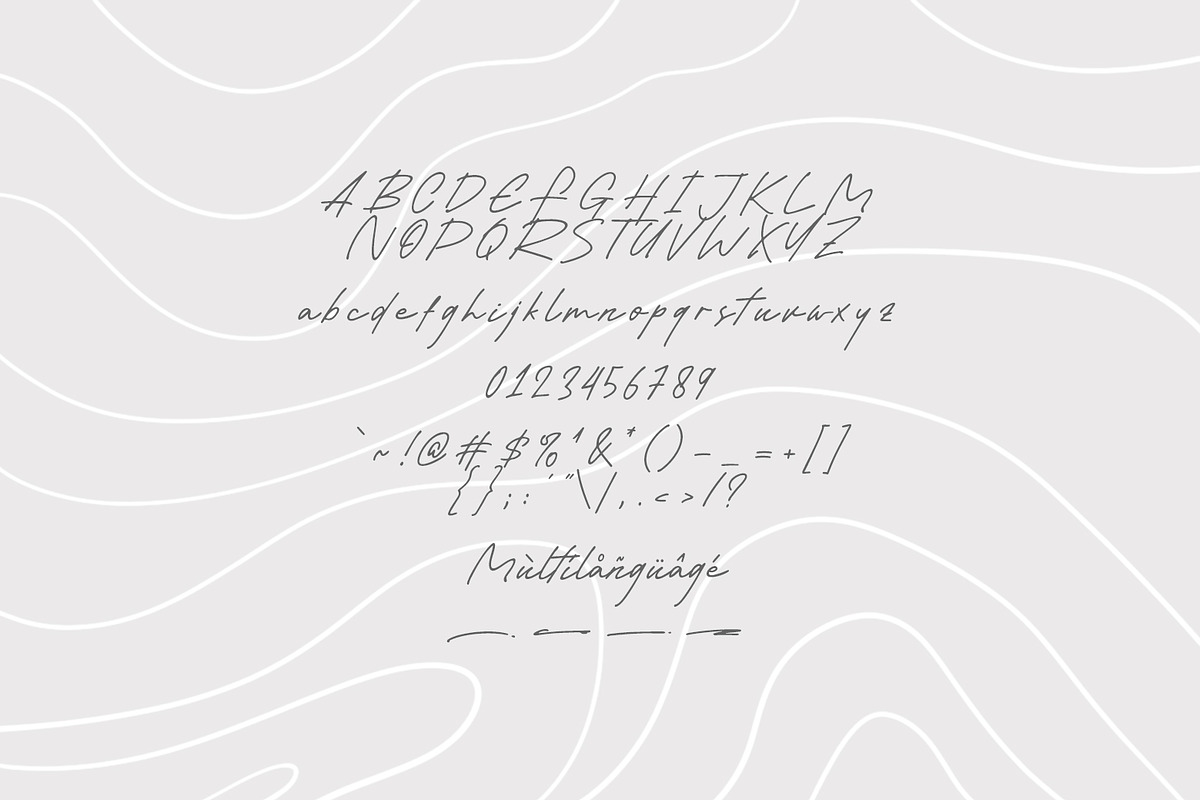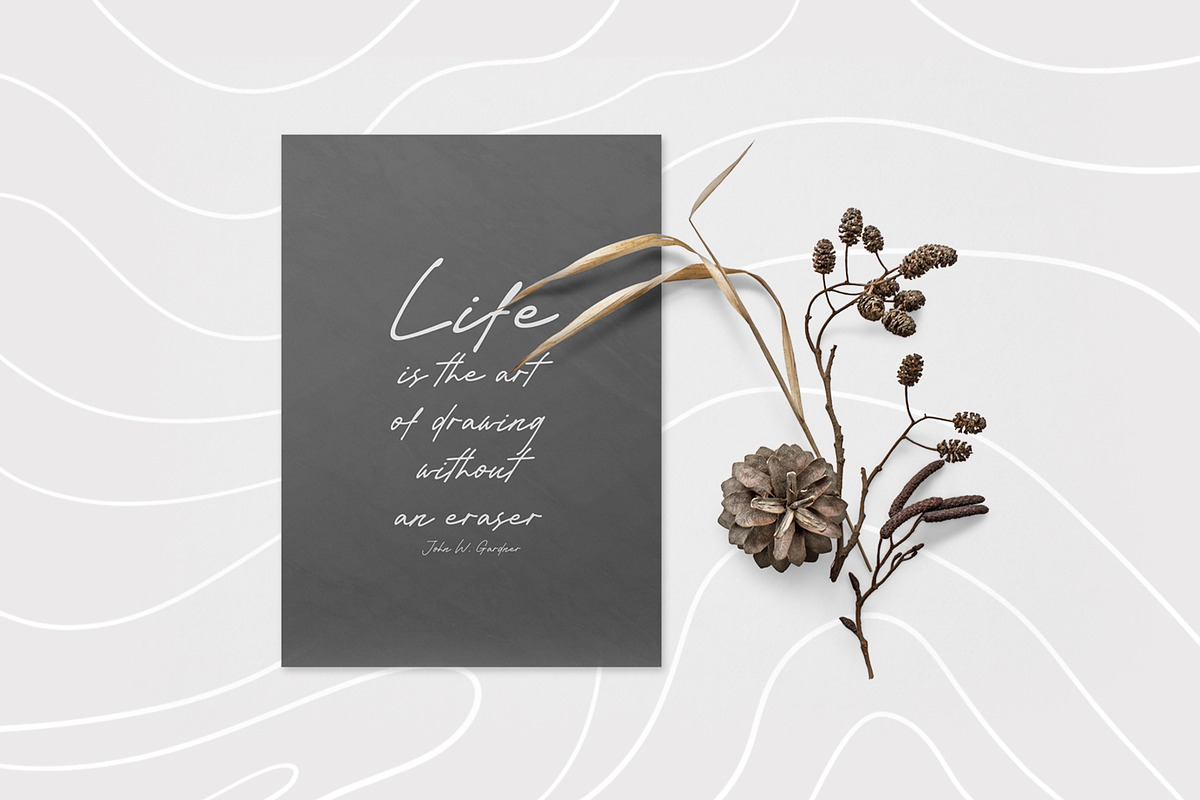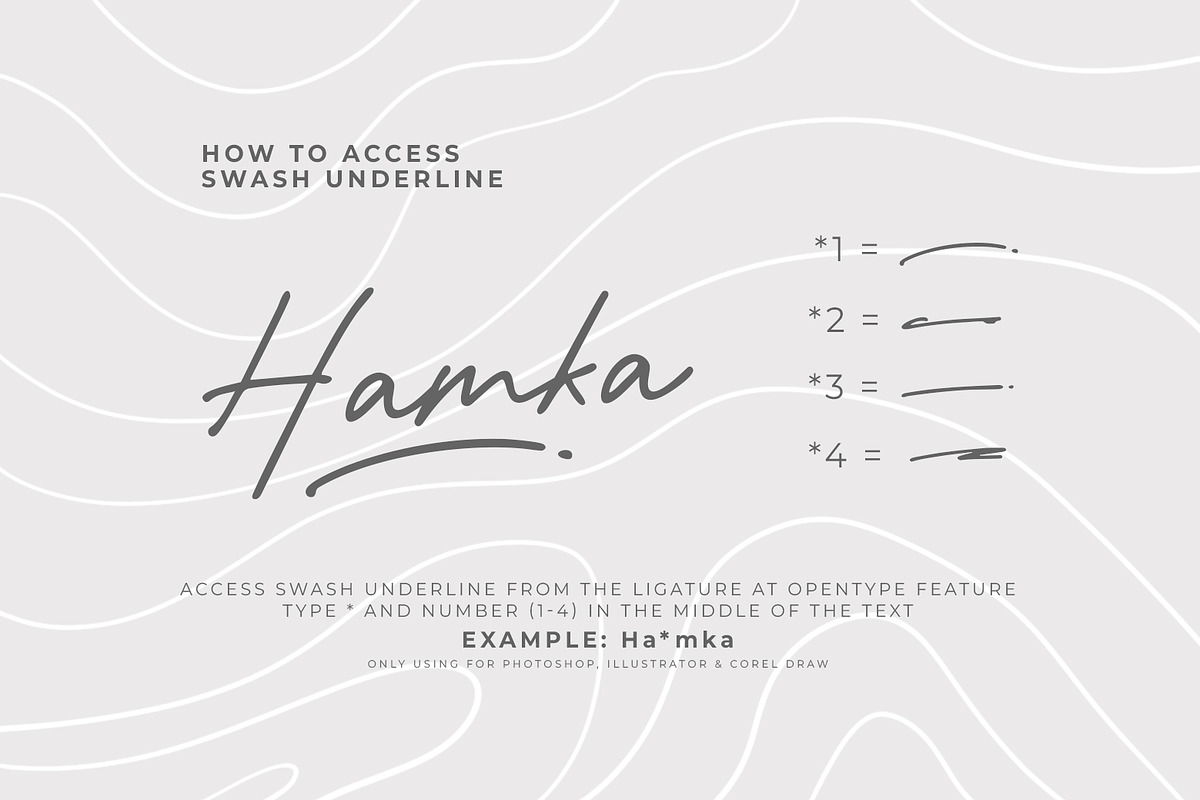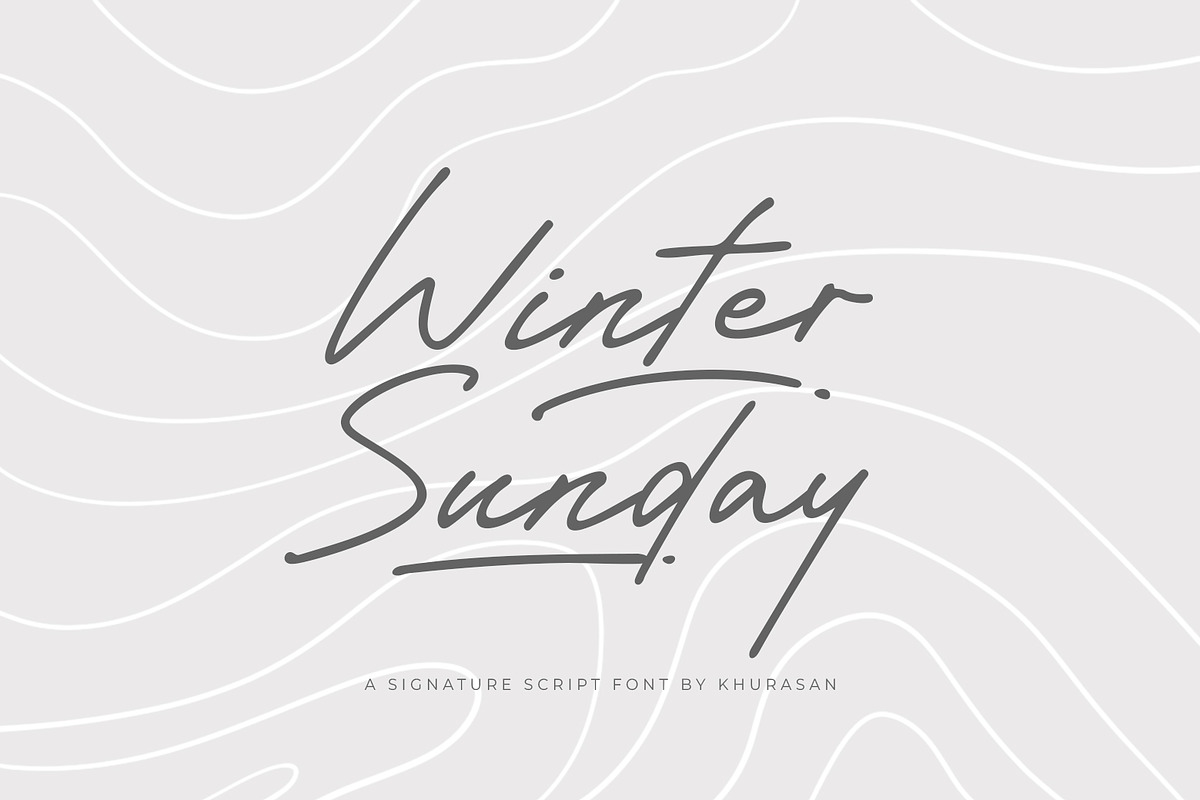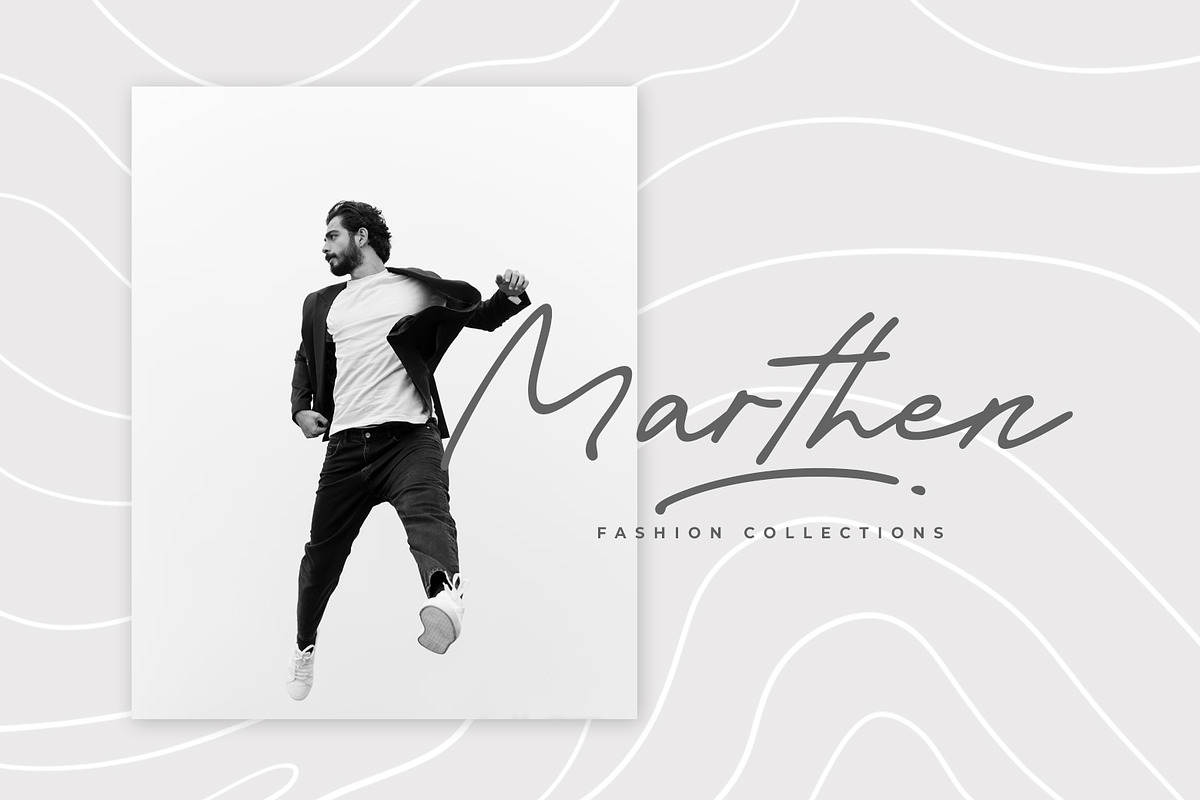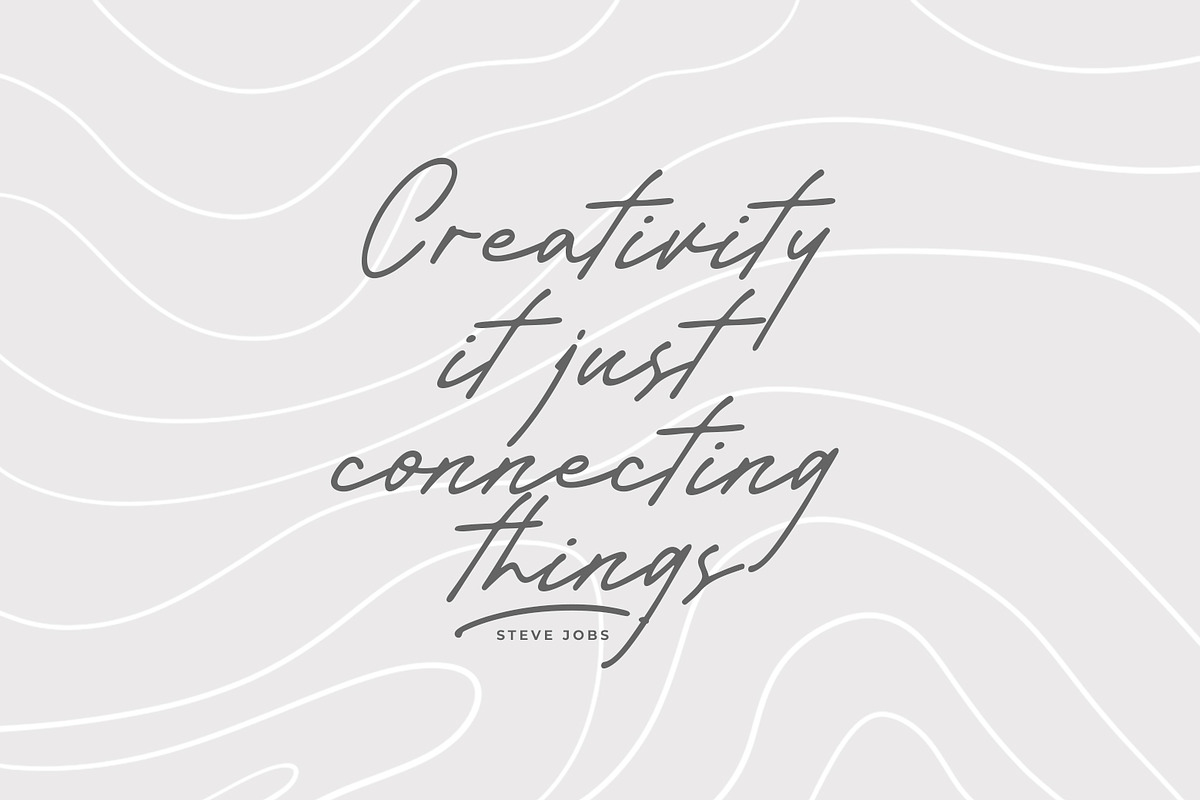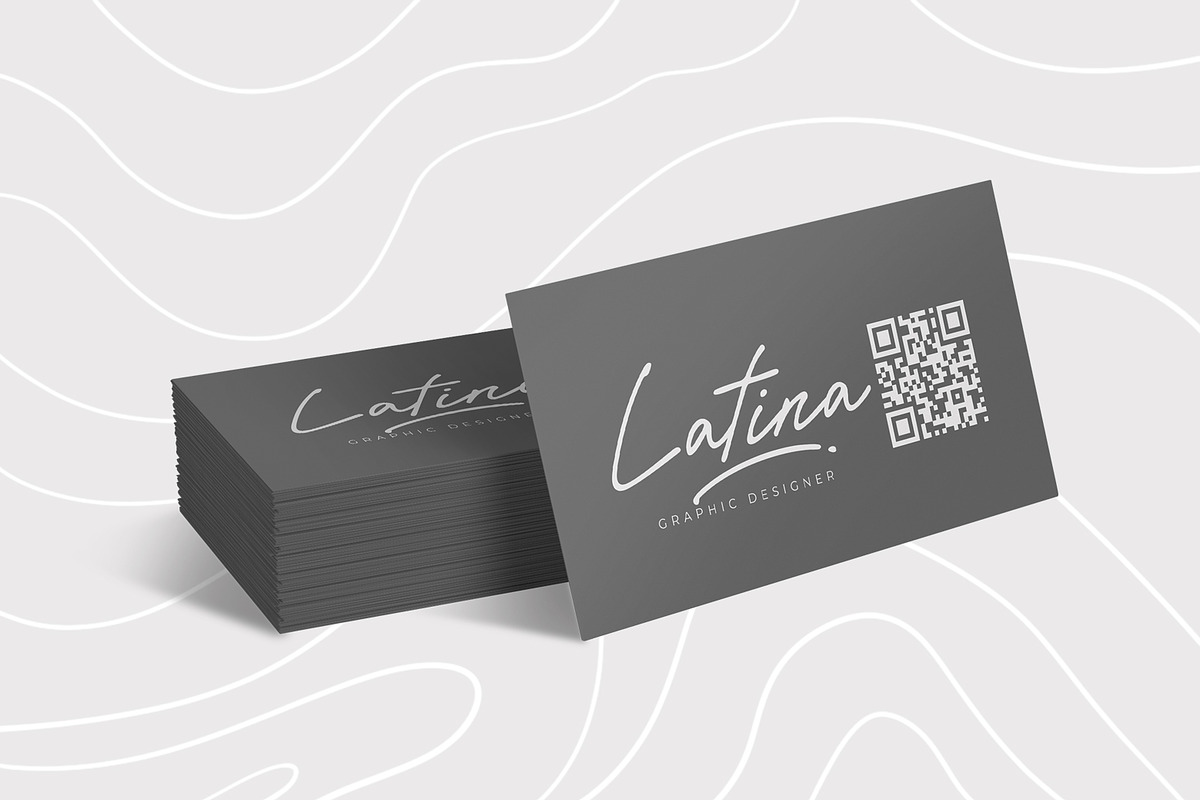
Winter Sunday
Winter Sunday is a modern script font. Winter Sunday font suitable for logo, branding, greeting card, poster and any design that you create…!